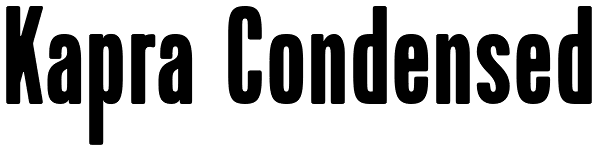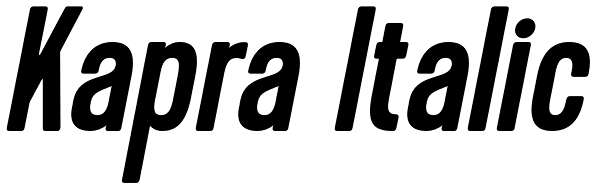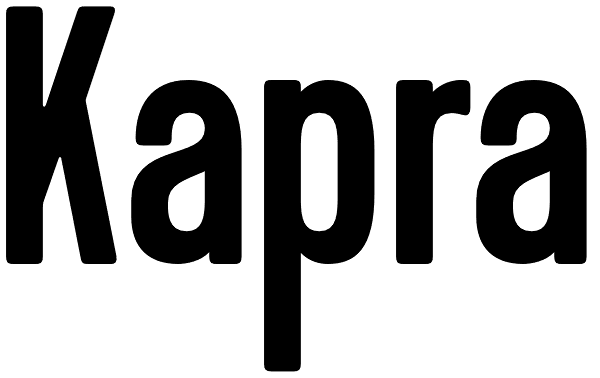
Kapra
To design a font Kapra, I was inspired by a You And Me Monthly published by National Magazines Publisher RSW „Prasa” that appeared from Mai 1960 till December 1973 in Poland. The font Kapra is designed in eight versions – lower and uppercase...